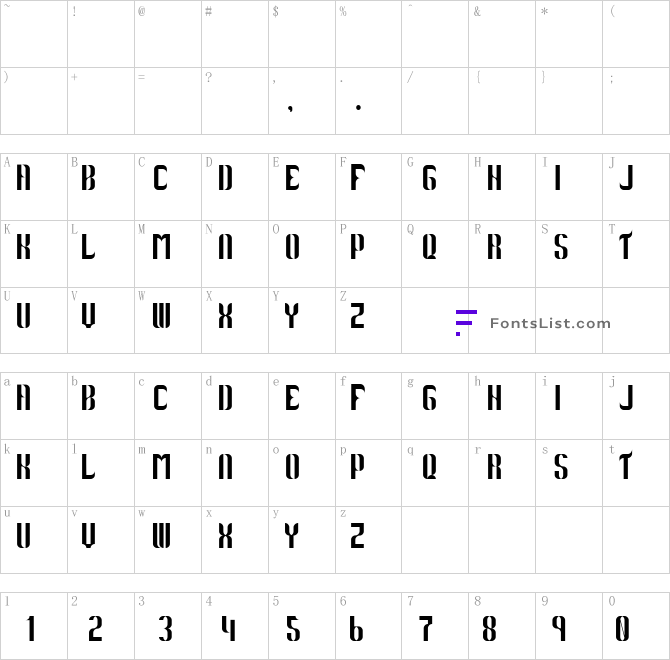
- Font Name:Arabic curves
Arabic-curves-Regular.ttf is a very beautiful artistic font, Arabic-curves-Regular.ttf is widely used in the design and printing of various books and pictures,Arabic-curves-Regular.ttf has a strong visual impact,Arabic-curves-Regular.ttf is a commonly used font in newspapers, magazines and books, and is used in posters, e-commerce Poster design, store design, logo design, font design and other fields.Arabic-curves-Regular.